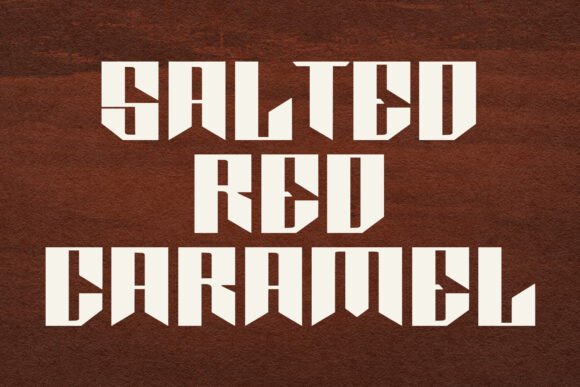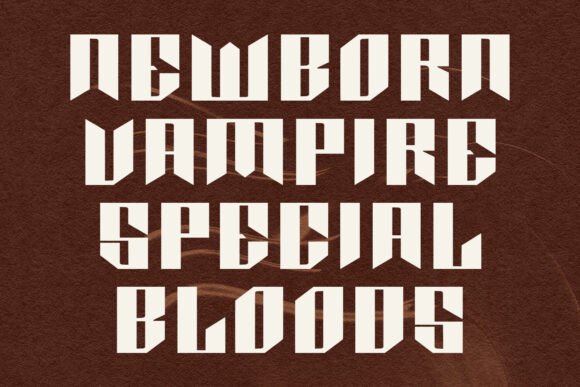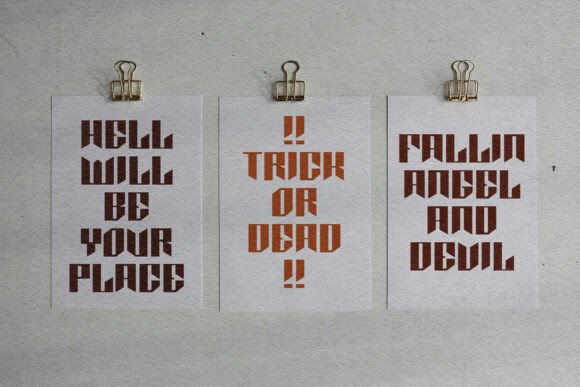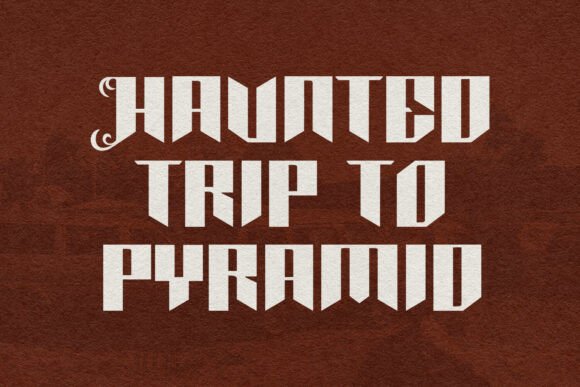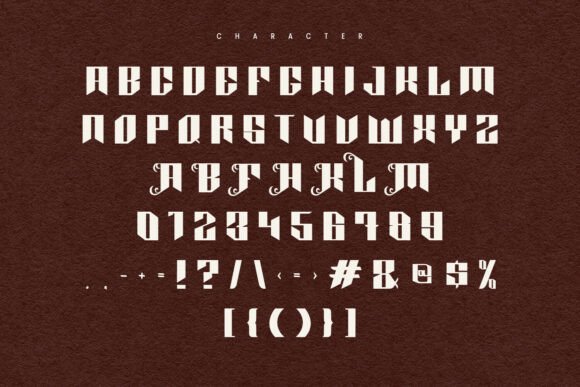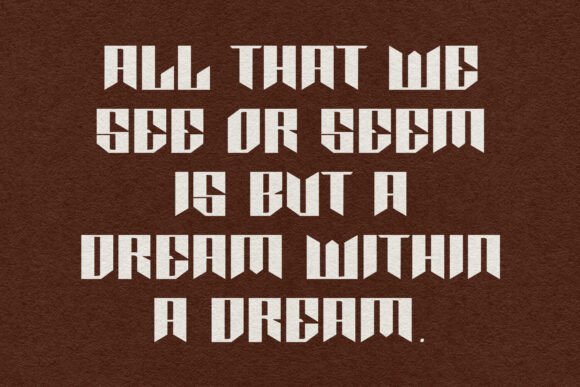
Introduction to Malciq Font
As a designer, have you ever been working on a project and needed that perfect font to give it an extra oomph? I recall a late night, pouring over a creative project, desperately searching for the right font to bring my design to life. And then, like a beacon in the darkness, I stumbled upon Malciq Font – a spooky display font that immediately caught my attention.
Its bold, sharp lines and edgy design make it a game-changer for any horror-themed project. With Malciq Font, you can create a creepy and dramatic look that grabs attention and leaves a lasting impression. Whether you’re working on a free download or a high-quality design resource, this font is sure to elevate your project to the next level.
What sets Malciq Font apart is its versatility – perfect for designers looking for a unique and striking design element. With a transparent background, this font can be easily layered over images or used as a standalone element. Its value lies in its ability to add a touch of sophistication and elegance to any project, making it a must-have for designers who want to take their work to the next level.
Key Features of Malciq Font
- Supports transparent background, allowing for seamless integration with various design elements.
- Features a unique, stylish design that can add a touch of sophistication to any project.
- Perfect for designers and artists working on creative projects, as a valuable design resource.
Honest Review: Malciq Font
One of the standout features of the Malciq Font is its high quality. The font is crisp and clean, making it perfect for designs that require a lot of text. It also has a transparent background, which makes it easy to customize and work with.
Here are some of the things that work well with the Malciq Font: ✨ High quality and crisp design ✨ Transparent background for easy customization ✨ Perfect for creative projects and designs with a lot of text
While the Malciq Font is a great resource, there are a few limitations to keep in mind: ⚠️ Limited font styles and variations ⚠️ May not be suitable for complex or technical designs
- Perfect for creative projects and designs with a lot of text
- High quality and crisp design
To get the most out of Malciq Font, use it in a creative project where you want to add a touch of elegance and sophistication. You can also experiment with different font sizes and colors to create a visually appealing design.
Common Use Cases for Malciq Font
Malciq Font is commonly used in designs such as wedding invitations, business cards, and marketing materials. It is also used in digital designs such as social media graphics and website headers.